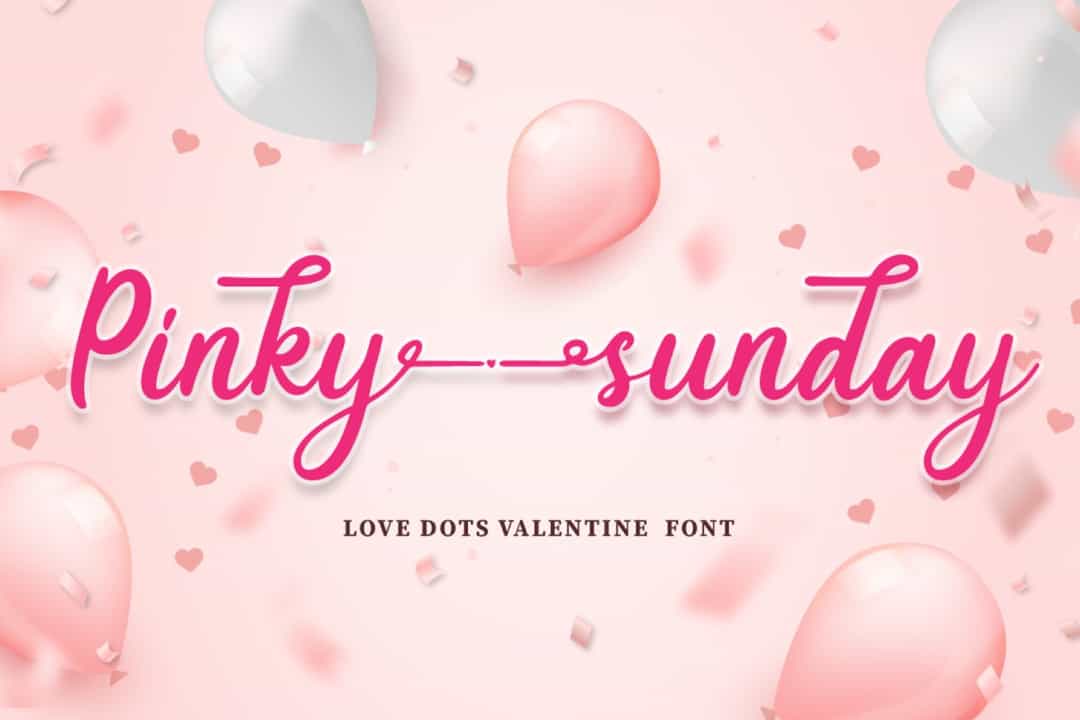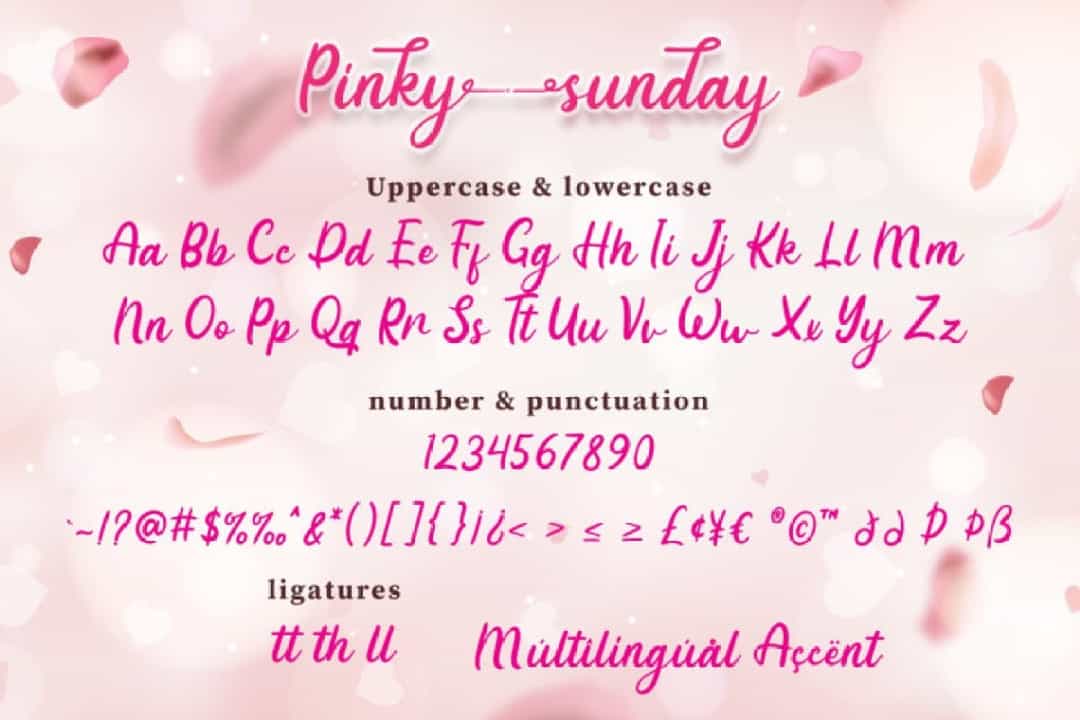
Discover Pinky Sunday Font, part of the Calligraphy collection—a versatile and unique font perfect for adding a personal touch to your projects. Download it for free and enjoy crafting designs with style, from invitations to social media posts. This font is available exclusively for personal use, giving you the freedom to create without limits. Unlock your creativity with Pinky Sunday Font today!
It is a Valentine Calligraphy Font that has many sets of stylistic alternates with beautiful alternatives. It is possible to achieve beautiful design solutions by applying this versatile design! Begin to love its versatility of design now!